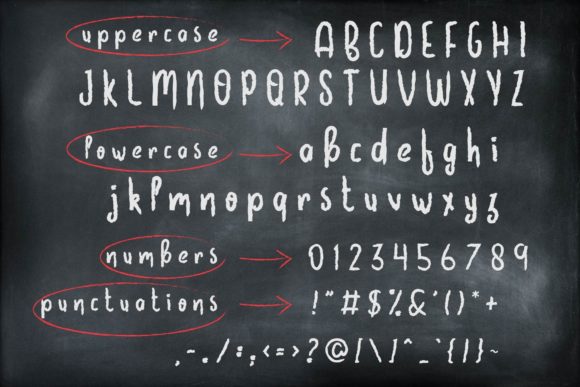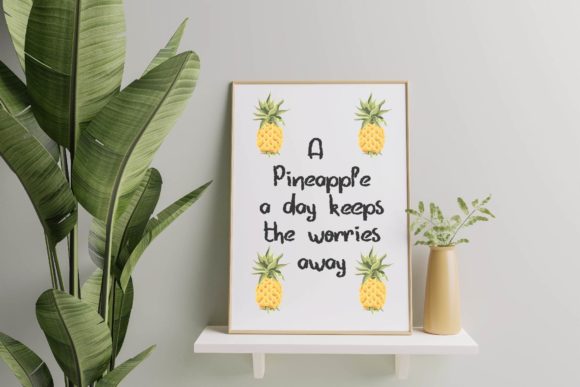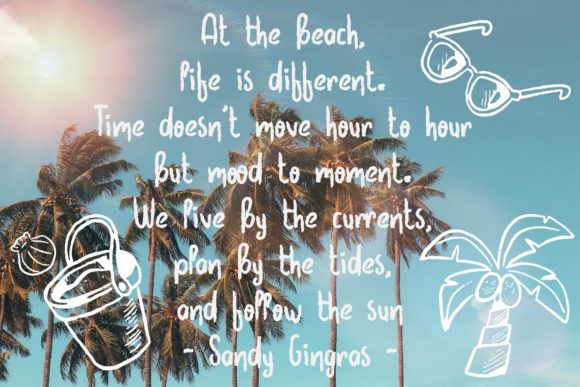
Introduction to Holiday Fruits Font
Holiday Fruits is a simple, cool and brushed display font.
Simple but with a strong visual effect, this font will instantly make your creation more appealing than any others .
Key Features of Holiday Fruits Font
Why Choose Holiday Fruits Font?
Holiday Fruits Font offers exceptional quality and versatility, making it a valuable addition to your design toolkit. Whether you’re creating for personal projects or commercial use, Holiday Fruits Font delivers professional results.